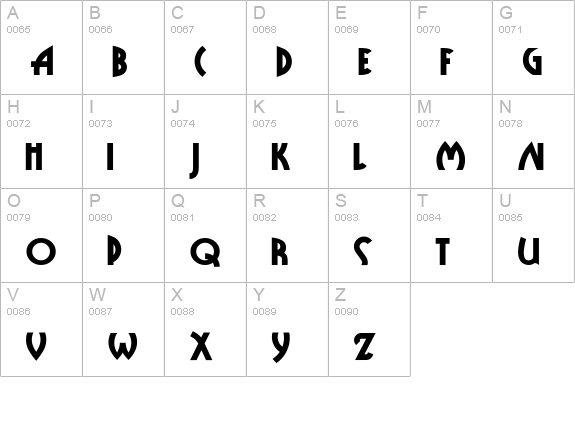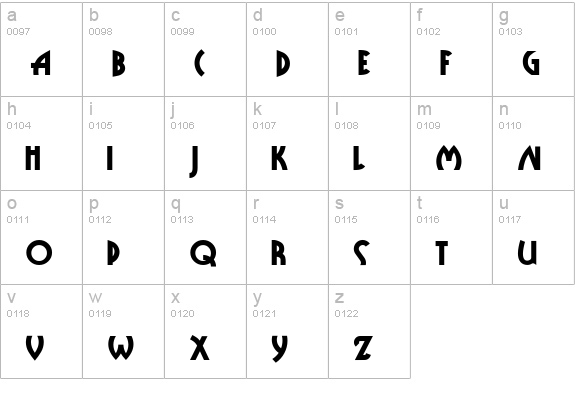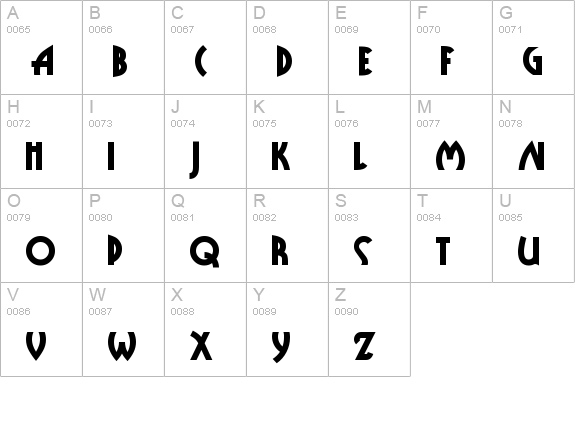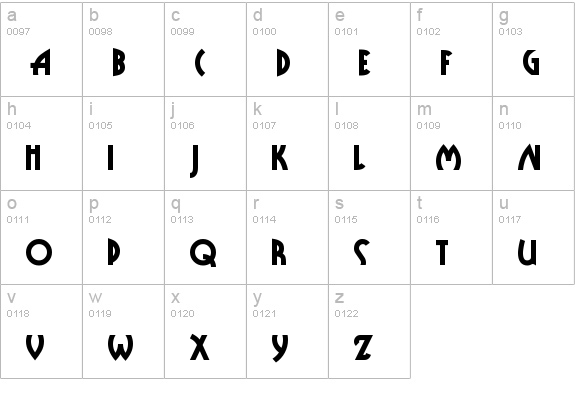
Public-Enemy Font Details
The Public-Enemy font is a bold and edgy typeface that commands attention and makes a statement. With its sharp angles and distinct letterforms, this font exudes confidence and strength. Perfect for headlines, posters, and branding projects that require a strong visual impact. The best part? Public-Enemy font is completely free to download at FontsMarket.com. This means you can add a touch of rebellion and attitude to your designs without breaking the bank. So go ahead, unleash your creativity and make a bold statement with the Public-Enemy font.